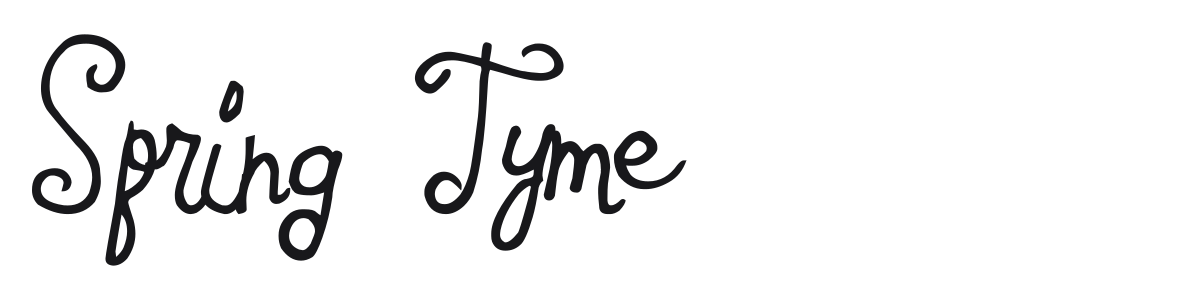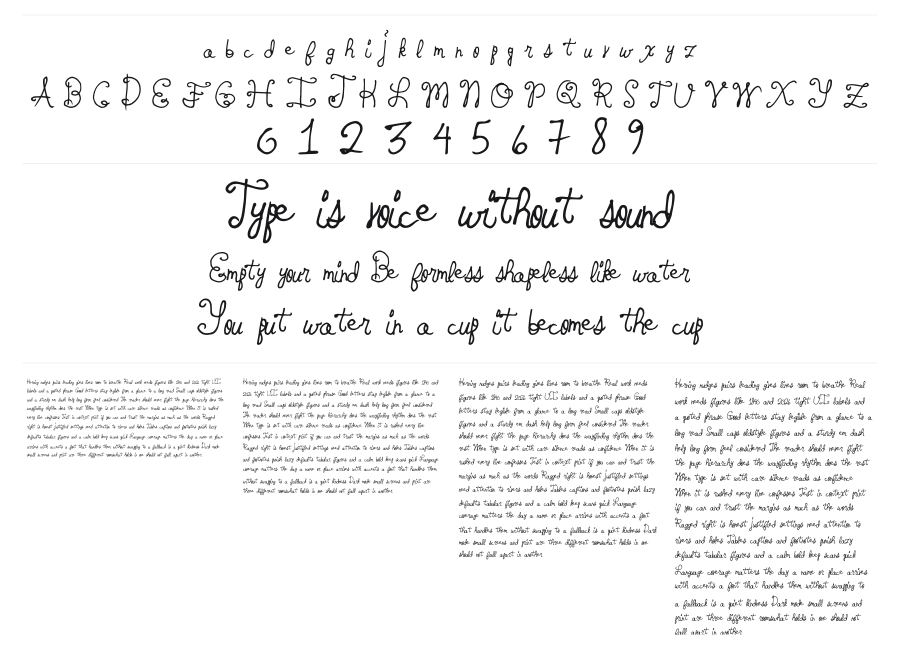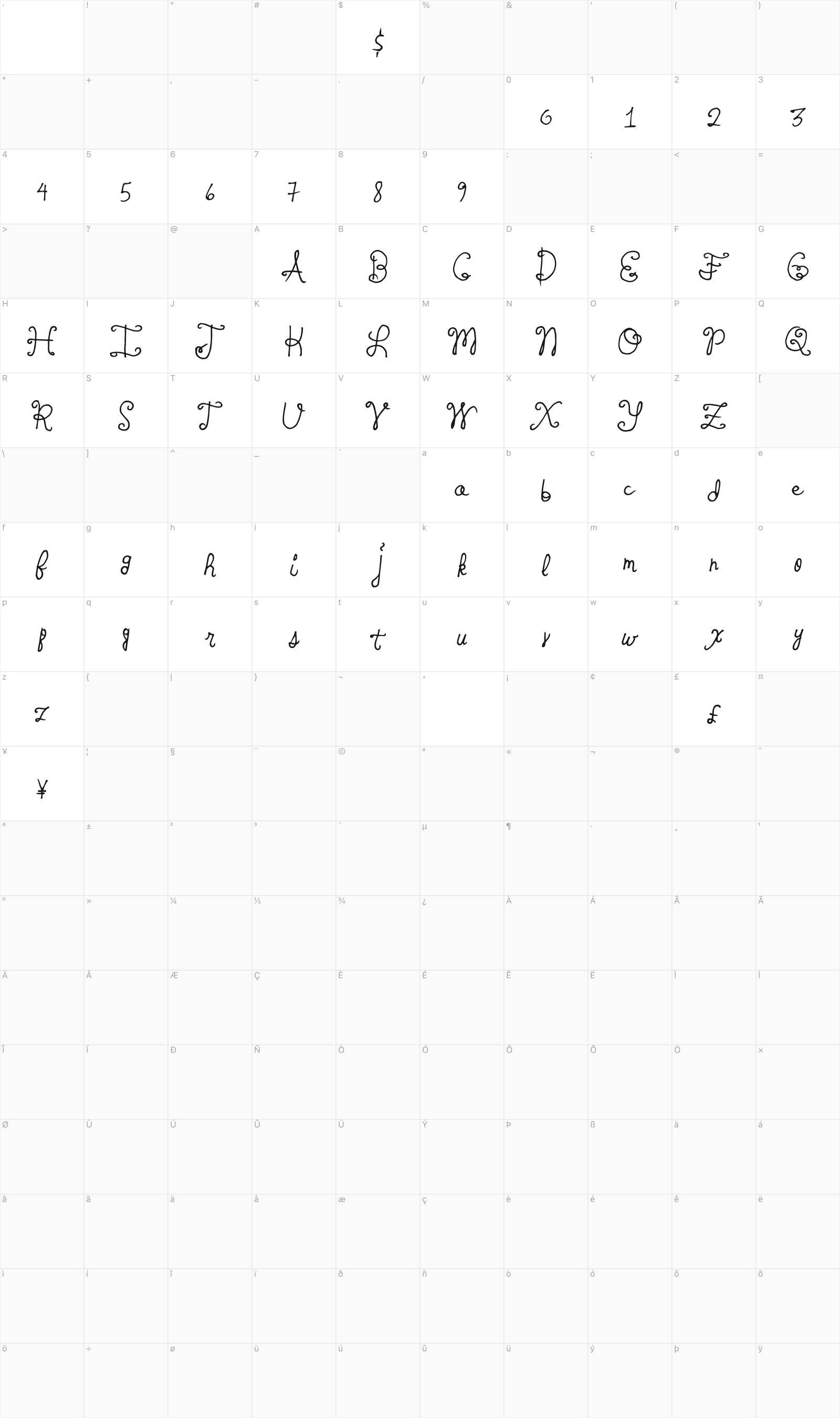
Spring Tyme
Spring Tyme is a casual connected script that looks like it was written with a fine felt-tip pen in one confident, flowing pass. The letters loop and link naturally with slight irregularities that keep it feeling human rather than mechanical. It has the easygoing warmth of a handwritten note, making it a natural fit for packaging, greeting designs, and anything that needs a personal touch.